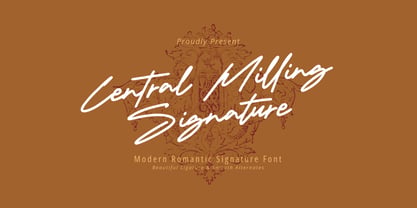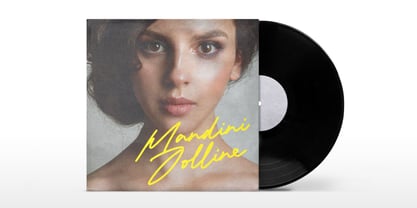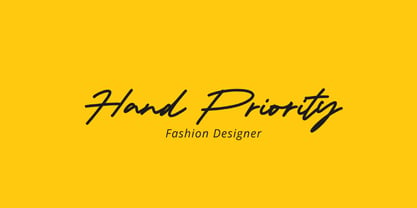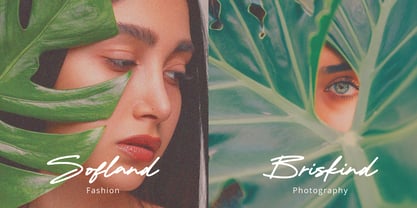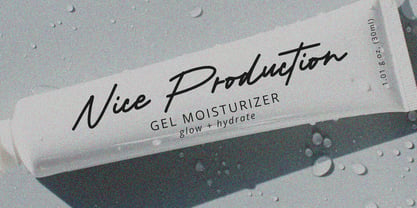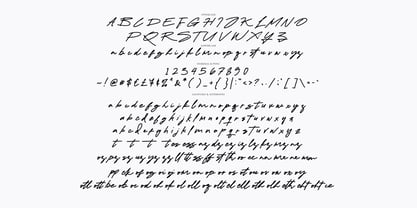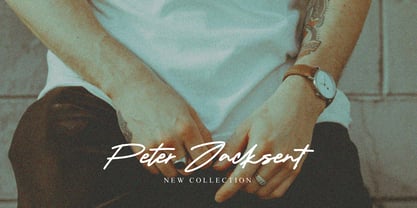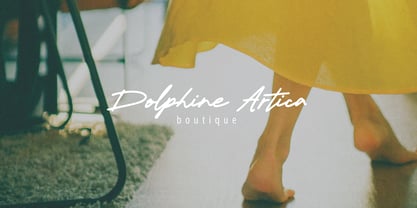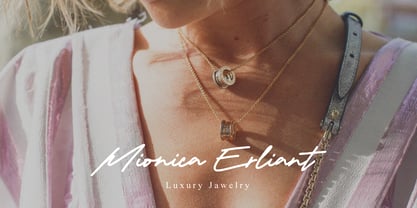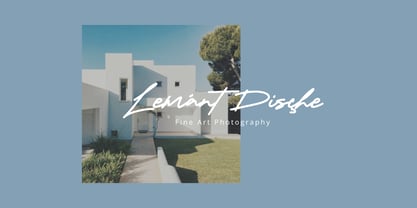
Central Milling Signature
Die Schriftfamilie Central Milling Signature wurde von Dzulka Elfira entworfen und von Tebaltipis Studio veröffentlicht. Central Milling Signature enthält 1 Stile. Mehr über diese Familie
Central Milling Signature – Modern Romantic Signature Font
Elevate your designs with Central Milling Signature, an elegant script font crafted with a modern romantic feel. Featuring smooth lines, expressive letterforms, dynamic ligatures, and versatile alternates, this typeface mimics real handwriting to add a refined, high-end feel to your projects.
Central Milling Signature is designed for upscale branding, luxury packaging, editorial layouts, wedding invitations, and lifestyle graphics. It brings a sophisticated, personal touch whenever an exclusive signature aesthetic is needed.
Central Milling Signature :
Uppercase & Lowercase International Languange & Symbols Support Punctuation & Number PUA Unicode Range Standard Ligatures Discretionary Ligatures Stylistic Alternates Stylistic Set.